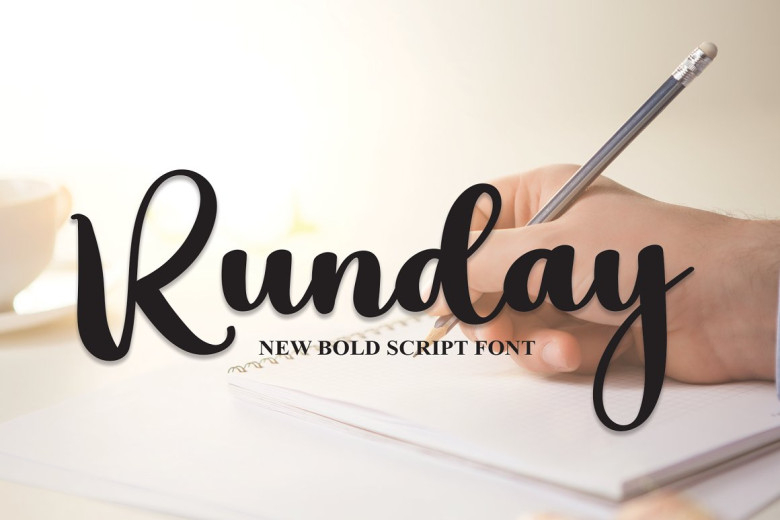
Runday Font
Runday is a highly recognized professional calligraphy font with its elegant yet modern style and stunning calligraphic strokes, making this typeface perfect for creative concepts both informal and formal. Contemporary in style with an artistic flourish, this font is suitable for use anywhere requiring creative writing – invitation cards, letter, sheads, logos on websites social media banners ads brochures packaging leather products etc.
With this font you will discover that all your products will appear beautiful, elegant and stylish when using it on them. Try it and see the results – the font offers a complete set of lower and uppercase letters as well as numbers, punctuation marks and ligatures that provide a natural appearance – everything you receive in this package!
Runday Calligraphy Script Font